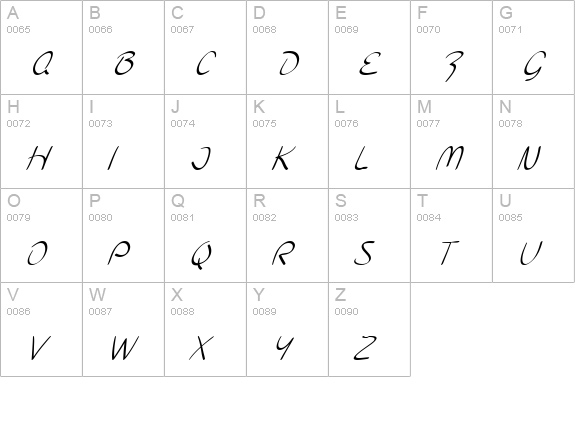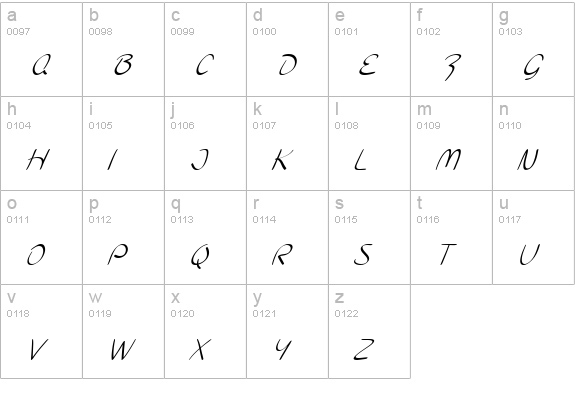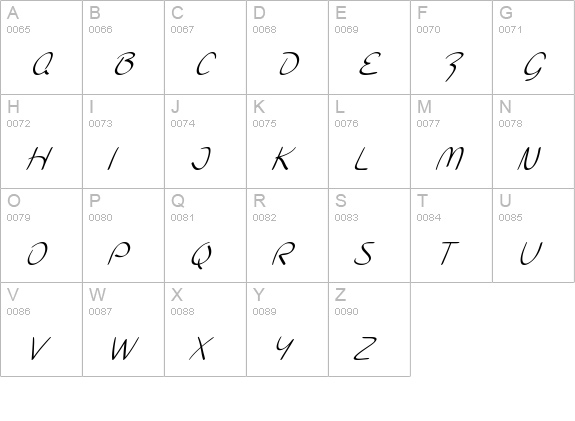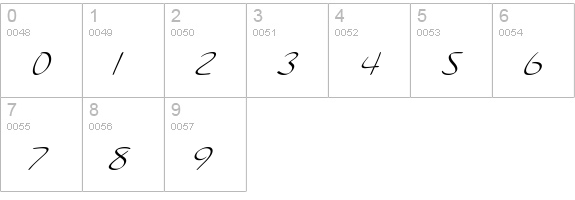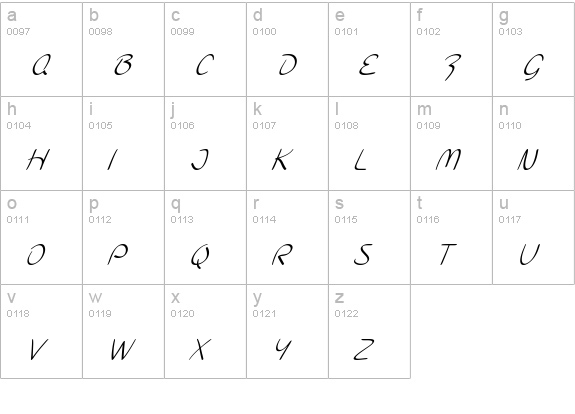
SF Burlington Script SC Italic Font Details
SF Burlington Script SC Italic is a distinctive, italic variant in the SF typeface family \xE2\x80\x94 well suited to design and typography projects.
SF Burlington Script SC Italic is a stunning and elegant font that adds a touch of sophistication to any project. With its flowing and graceful strokes, this font exudes a sense of elegance and charm. The italic style adds a unique flair, making it perfect for adding emphasis or creating eye-catching designs. This font is not only beautiful, but it is also incredibly versatile. Its curvaceous letterforms lend themselves well to a variety of design projects, including invitations, logos, branding, and more. Whether you are creating a wedding invitation or a stylish logo for a high-end brand, SF Burlington Script SC Italic is sure to elevate your designs to the next level. One of the best things about SF Burlington Script SC Italic is that it is free to download. That's right, you can add this stunning font to your collection without having to spend a dime. Simply visit FontsMarket.com and easily download it to your computer or device. This font is a treasure trove for designers, offering an incredible value with its exceptional quality and zero cost. So, why wait? Enhance your design projects with the elegance and charm of SF Burlington Script SC Italic. Download it for free at FontsMarket.com and see how it can transform your designs from ordinary to extraordinary.